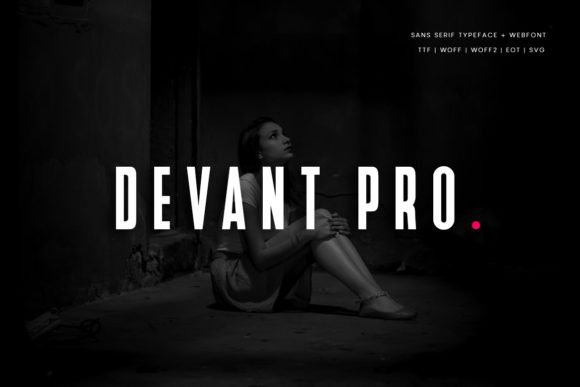
Introducing Devant Pro Font: Elevate Your Designs with a Minimal and Neat Sans Serif
Are you on the hunt for a font that can effortlessly elevate your creative projects? Look no further than Devant Pro Font, a stunning sans serif font that is as minimal as it is neat. Its versatility and clean design make it an ideal choice for a wide range of projects, from branding and advertising to crafting and DIY endeavors.
The Characteristics of Devant Pro Font
Devant Pro Font boasts a sleek and modern design that is characterized by its simplicity and elegance. As a sans serif font, it lacks the small lines or flourishes that are typical of serif fonts, giving it a clean and streamlined appearance. This makes it perfect for designs where you want the content to take center stage, without any distractions.
The minimalistic approach of Devant Pro Font doesn’t compromise on style or readability. Its letters are carefully crafted to be easily readable, even at smaller sizes, making it suitable for body text as well as headings. The font’s neat design ensures that your text looks organized and professional, which is essential for creating a positive impression on your audience.
Versatility of Devant Pro Font
One of the standout features of Devant Pro Font is its incredible versatility. It can be used in an astonishingly large set of projects, thanks to its neutral and adaptable design. Whether you’re working on:
- Branding and logos: Create a lasting impression with a clean and modern logo that reflects your brand’s values.
- Advertising and marketing materials: Use Devant Pro Font to create eye-catching ads, brochures, and flyers that grab attention.
- Web design: Enhance your website’s typography with a font that is both readable and visually appealing.
- Crafting and DIY projects: Add a professional touch to your handmade products, such as labels, packaging, and instructions.
- Signage and displays: Make your message clear and concise with a font that is easy to read from a distance.
The possibilities are endless with Devant Pro Font. Its flexibility allows you to experiment with different styles, colors, and textures, ensuring that your designs always stand out.
Why Choose Devant Pro Font?
With so many fonts available, why should you choose Devant Pro Font for your projects? Here are just a few compelling reasons:
- Unique and modern design: Devant Pro Font offers a fresh and contemporary look that will set your designs apart from the crowd.
- High readability: The font’s careful design ensures that your text is easy to read, even at smaller sizes.
- Versatility: Use Devant Pro Font in a wide range of projects, from digital designs to print materials.